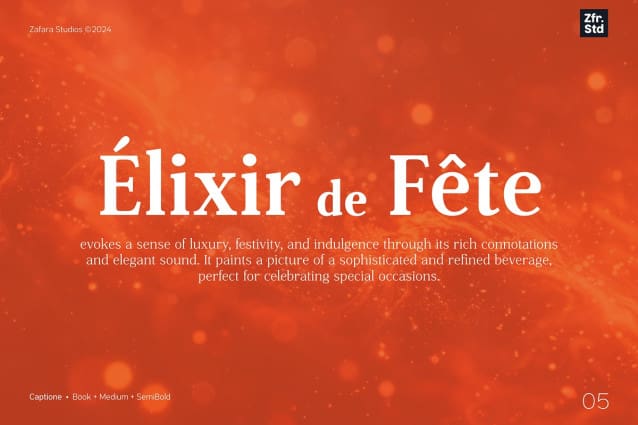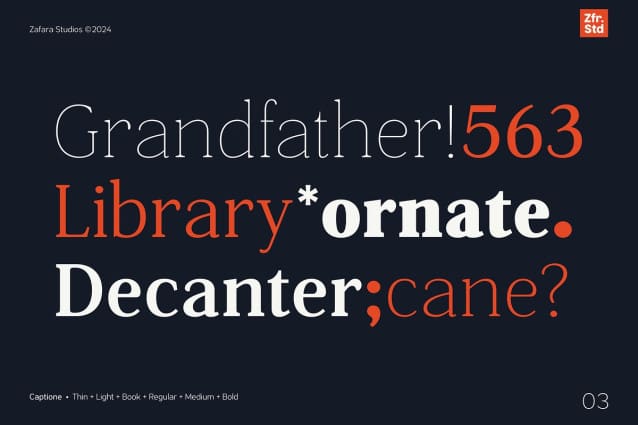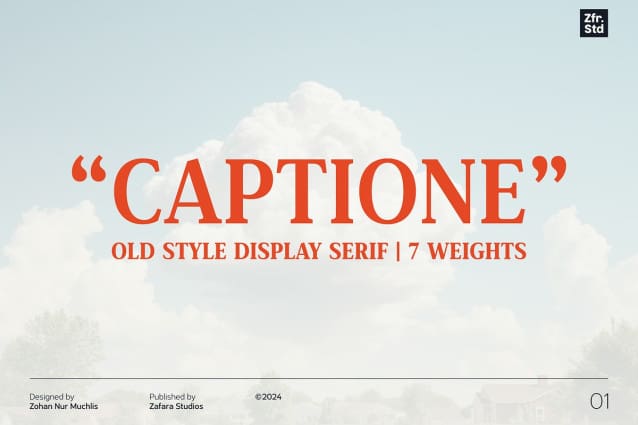
Captione Font
Captione Font is a classic old style serif font designed to embody a sense of elegance and strength. With its traditional roots and contemporary clarity, Captione Font is timeless and versatile, featuring seven distinct weights from Thin to Bold that adapt to a variety of design needs. Each weight maintains the same elegant design features, with the thinner weights providing a subtle elegance and the heavier ones offering a commanding presence.